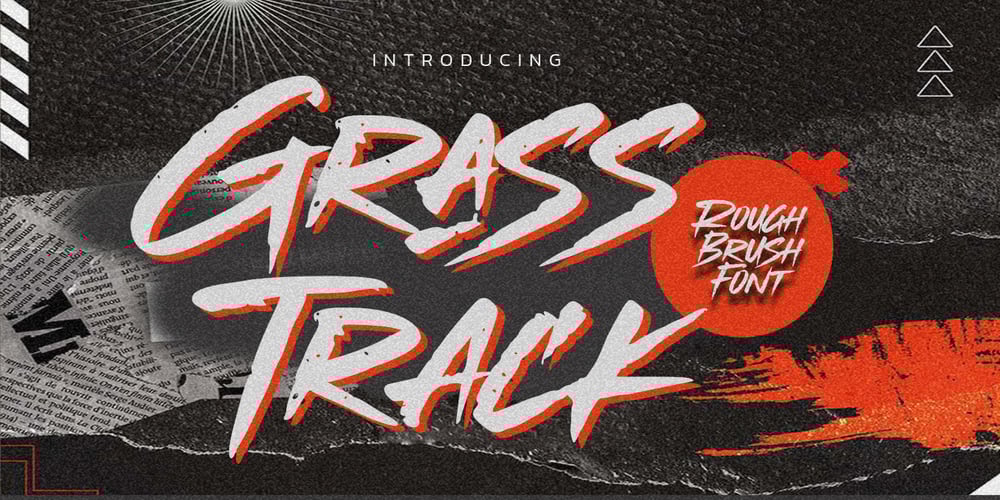
Grasstrack
Grasstrack font
Grasstrack Font Family was designed by Abdul Malik Wisnu, Anang Fibriyanto and published by Gassstype. Grasstrack contains 1 styles and family package options. Hello Everyone, introduce our new product Font Grasstrack This Is Rough Brush Font.This is a Textured Natural Style and classy style with a clear style and dramatic movement.That is has charming, authentic and relaxed characteristic more natural look to your text. You can activate 29 Ligatures and 5 Alternate glyphs OpenType panel.